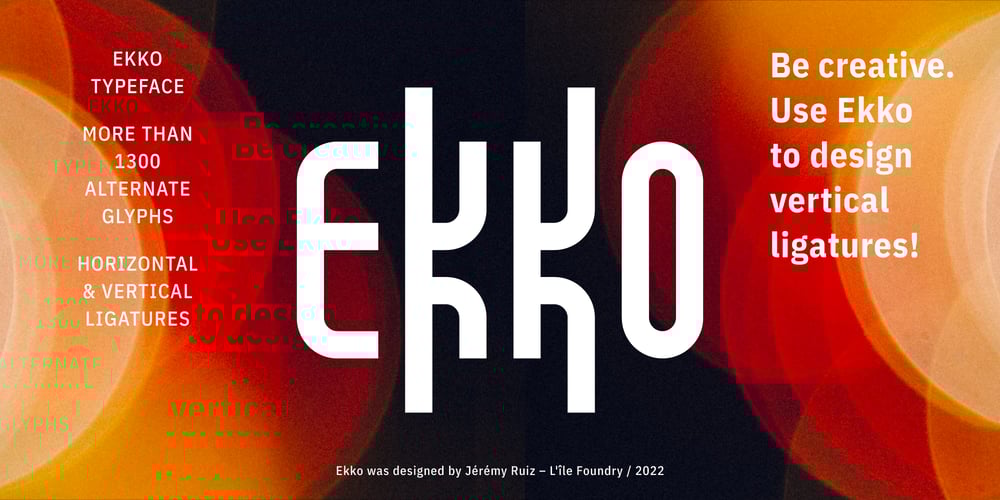
Ekko
Ekko font
Ekko Font Family was designed by Jérémy Ruiz and published by L’île Foundry. Ekko contains 1 styles and family package options. Ekko is a typeface that gives you tools to be creative.Indeed, it contains more than 1300 alternate glyphs.By combining these alternate glyphs between them, you can design real vertical ligatures.The graphic possibilities are numerous and various.Ekko gives you the opportunity to play, to experiment and to discover, in order to associate the various vertical ligatures between them, in a balanced and harmonious way.Thus, Ekko makes it possible to express the musicality of each word, and to give a specific, original and unique rhythm to each composition.Following the spirit of jazz music: nothing is predefined, but everything remains open. Be creative and enjoy!We recommend that you use Ekko with a line spacing suitable to the font size with a ratio between 0,54 and 0,6. For example, if the font size is 100 pts, the best line spacing will be between 54 and 60 pts.In order to give the best flexibility to Ekko, you can also find, through other alternate glyphs, different widths for each letter (except: M, N, V and W in uppercase).Each letter, lowercase and uppercase combined, is thus available in dimensions: 3×8, 5×8 and 7×8.Ekko also contains 28 horizontal ligatures.